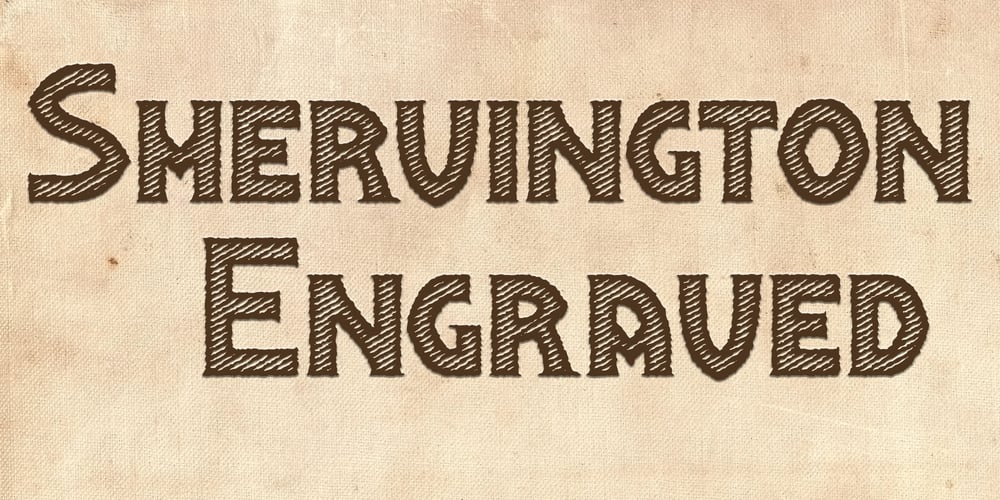
Shervington Engraved Font Family was designed by Paul James Lloyd and published by Greater Albion Typefounders. Shervington Engraved contains 1 styles and family package options. Shervington Engraved is a re-drawing of our previous Shervington typeface, showing it as it appears hand engraved on copper-plate with a stylus, with the letter forms shaded in diagonally. It combines excellent clarity with a rustic distressed look, and is ideal for use on signage and headings.